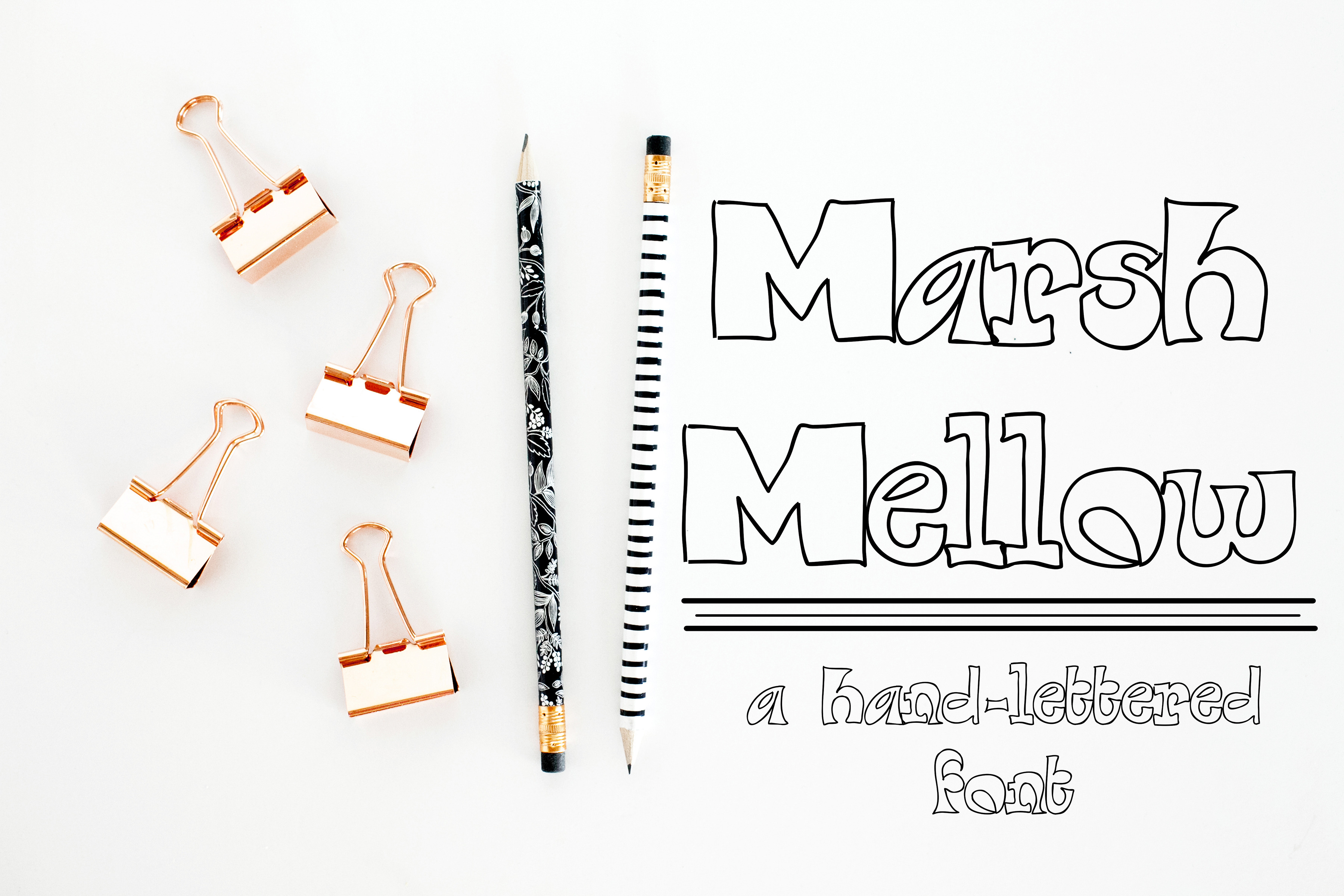
MARSH MELLOW Hand Lettered Font
MarshMellow is a quirky hand-lettered font with some personality. Available in TTF file with full alphabet, numbers, and symbols.